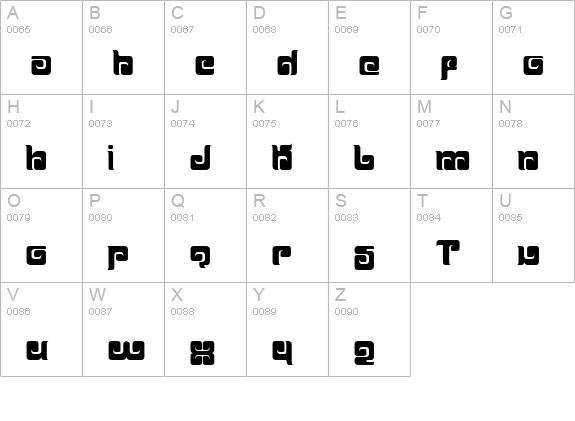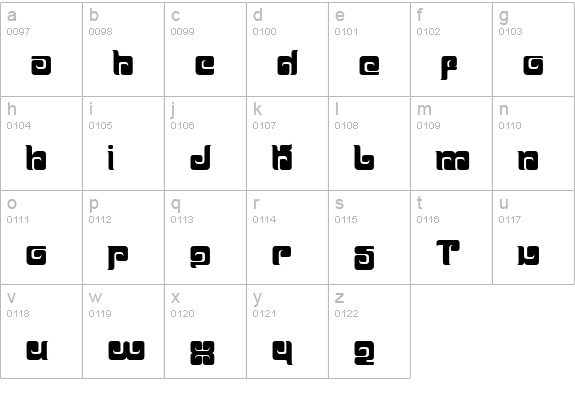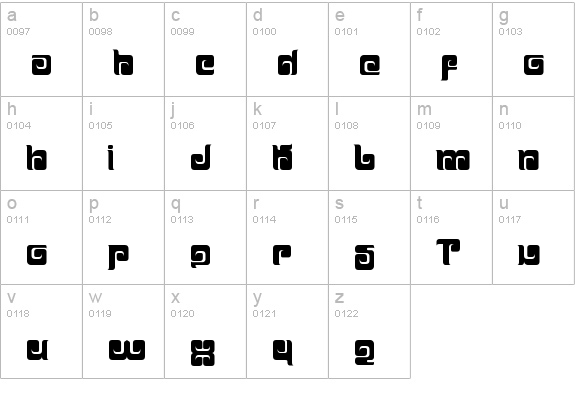
BALLOM Font Details
Introducing BALLOM font, a modern and stylish typeface that exudes elegance and versatility. With its sleek lines and contemporary design, this font is perfect for a wide range of creative projects, from branding to editorial design. The BALLOM font is free to download at FontsMarket.com, making it accessible to designers and creatives looking to add a touch of sophistication to their work. Whether you're creating a logo, designing a poster, or crafting a website, BALLOM font is sure to make a statement and elevate your designs to the next level. Download it today and let your creativity shine with this stunning typeface.